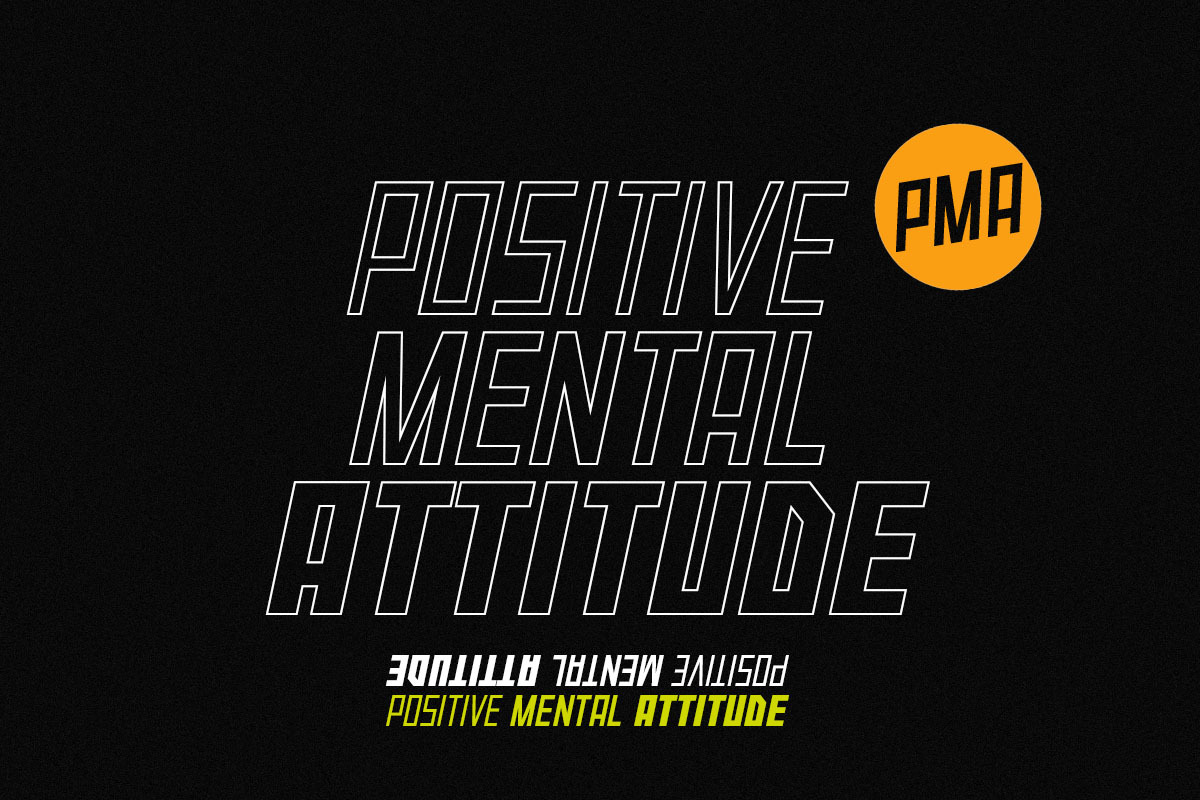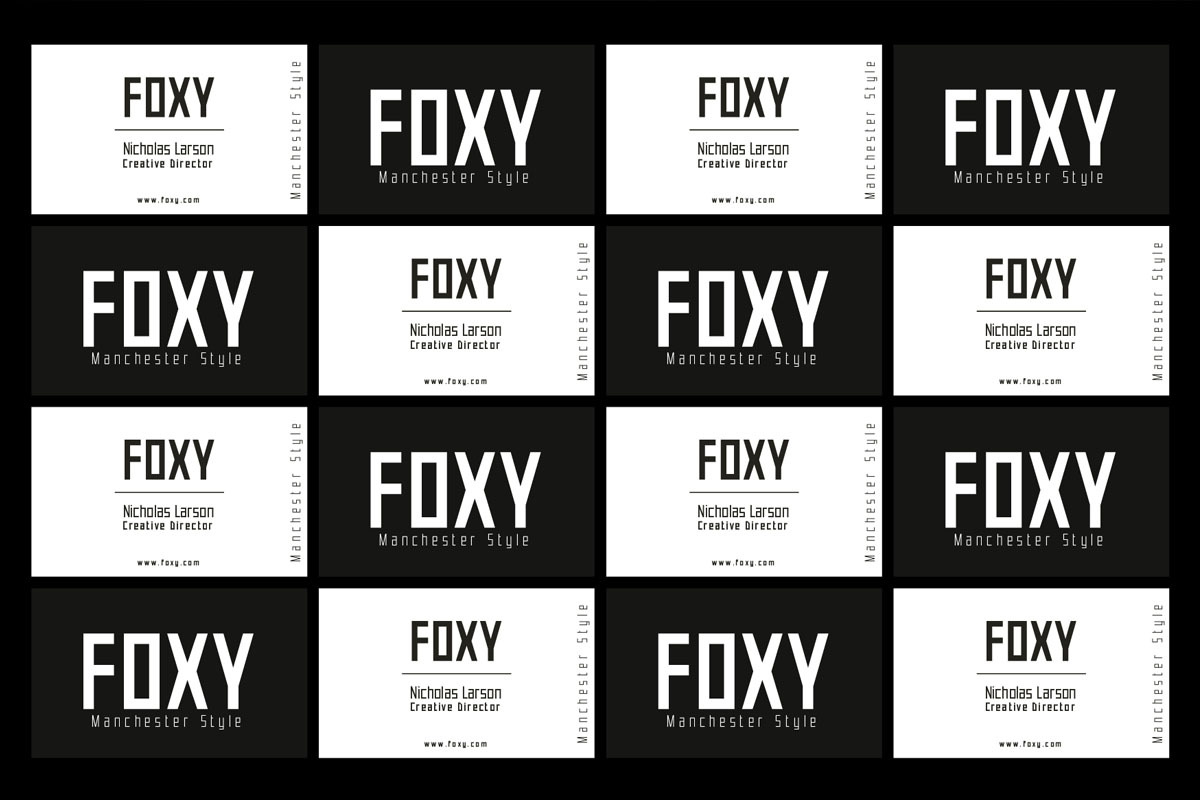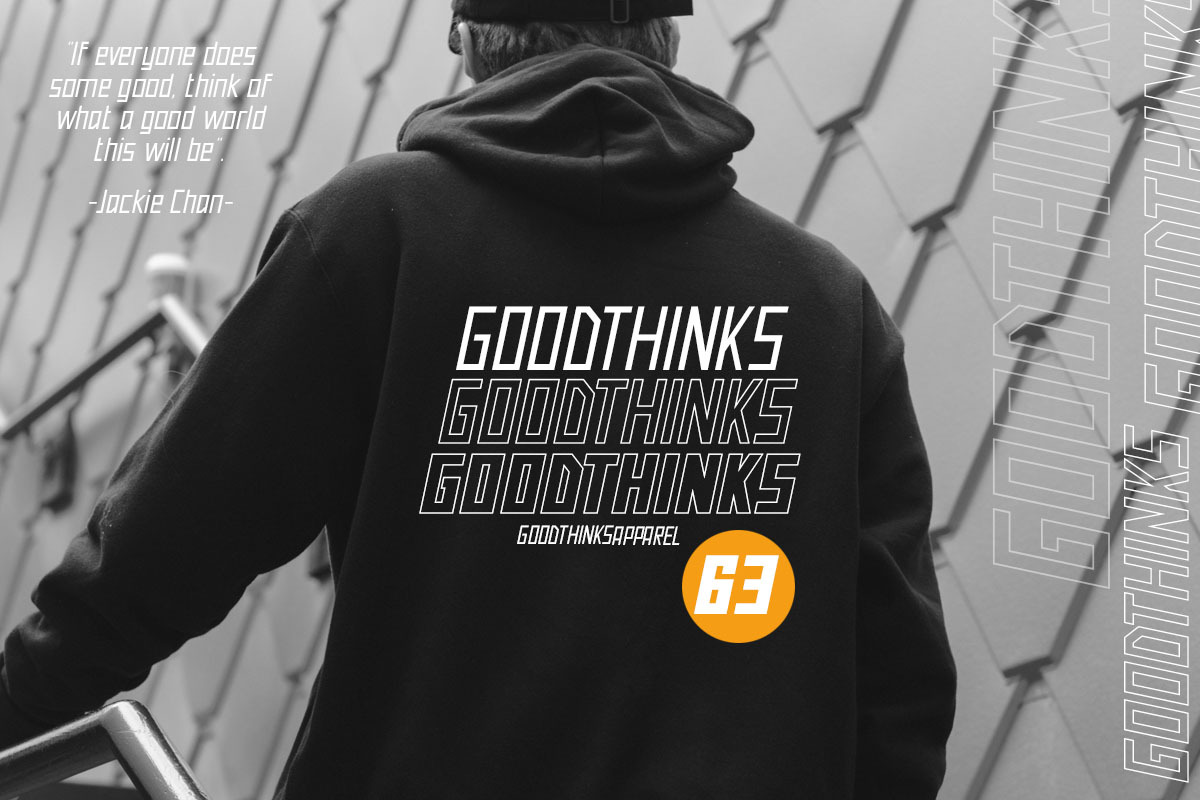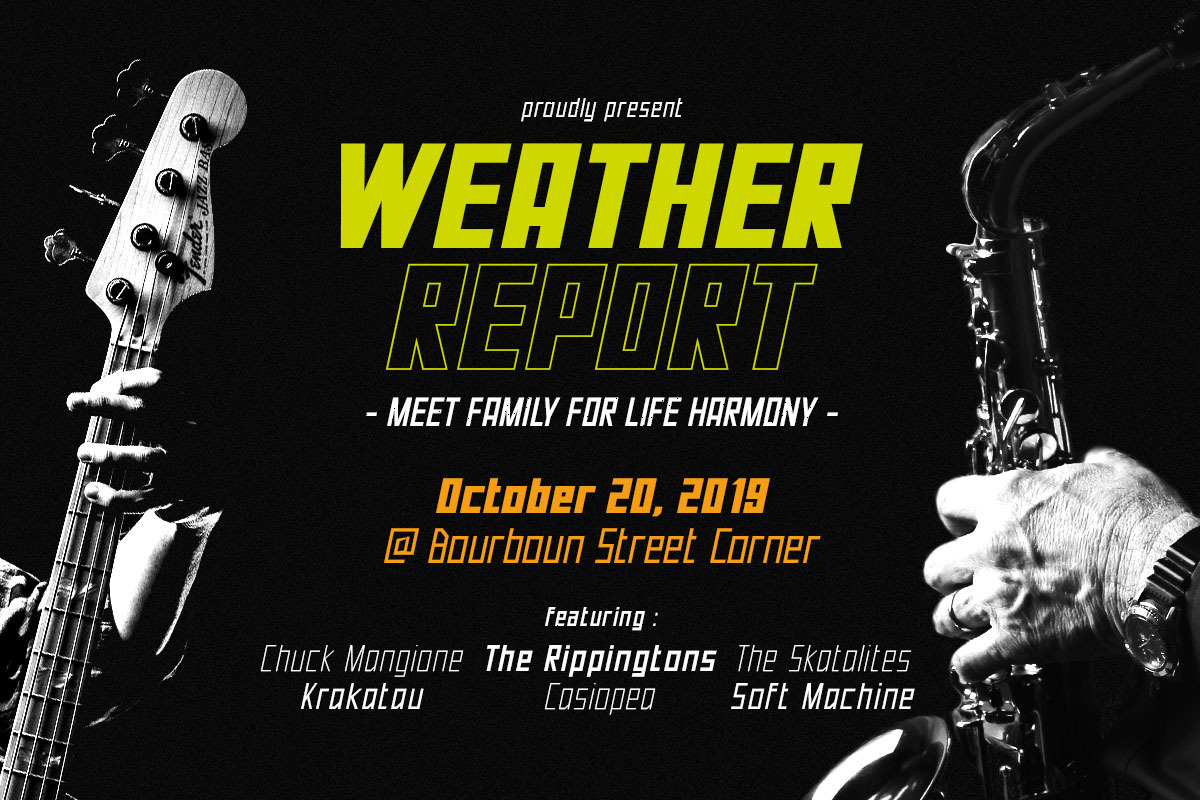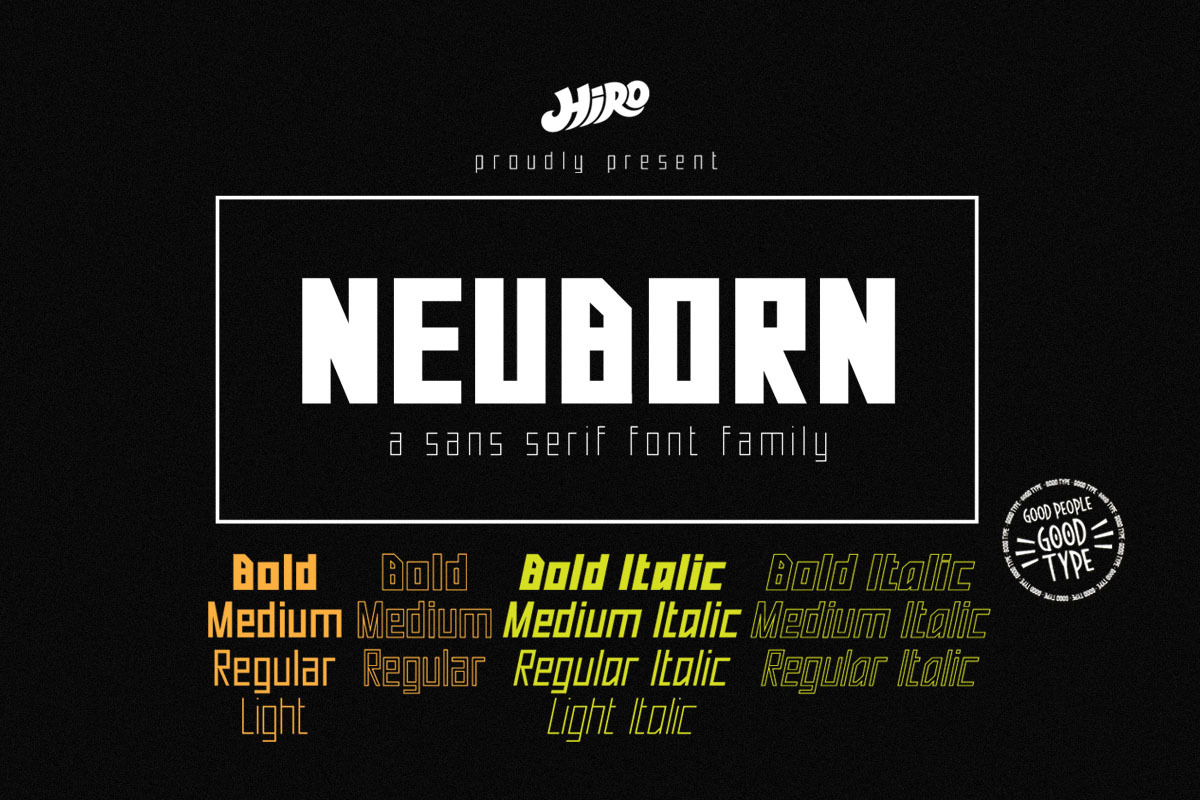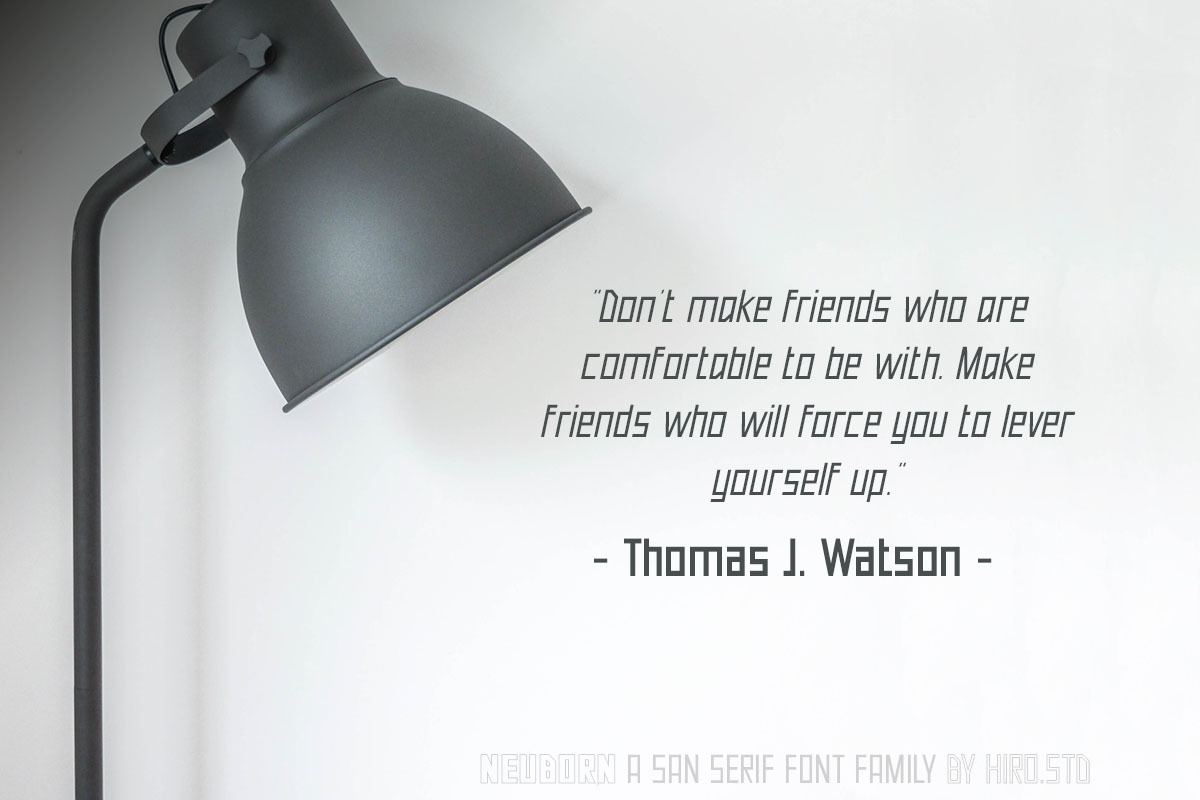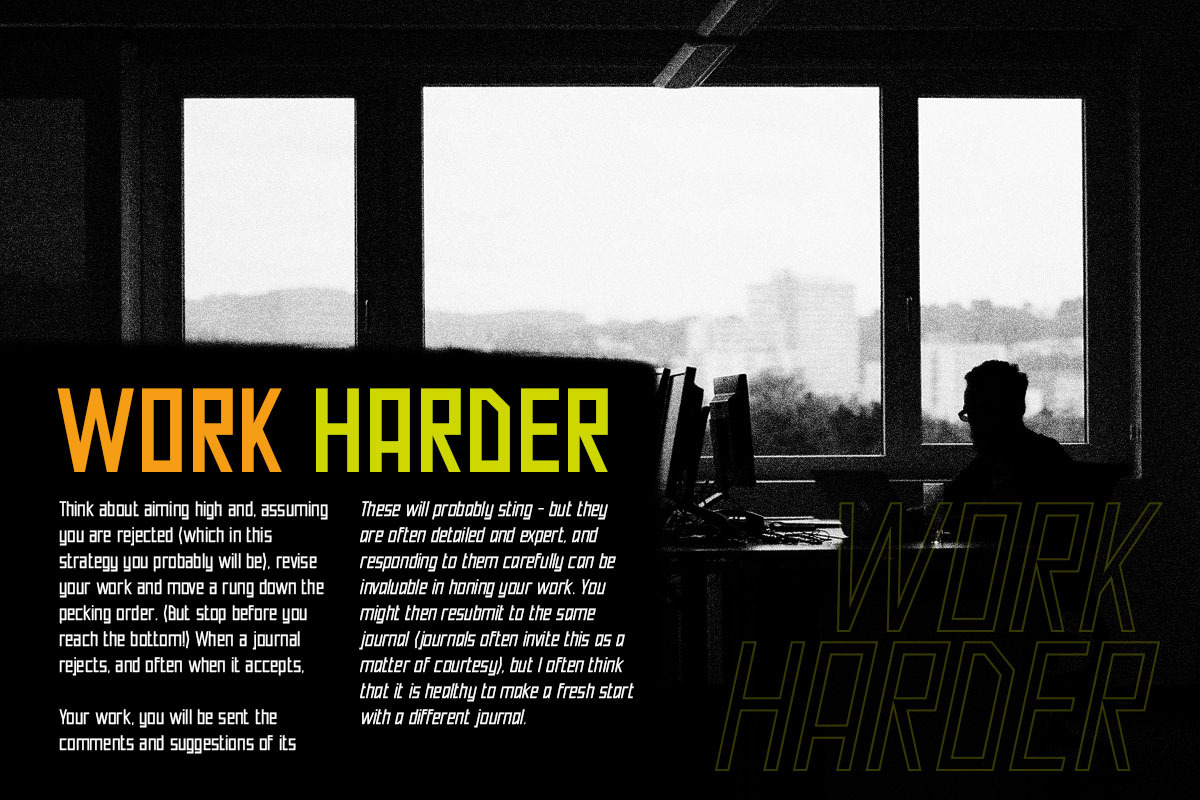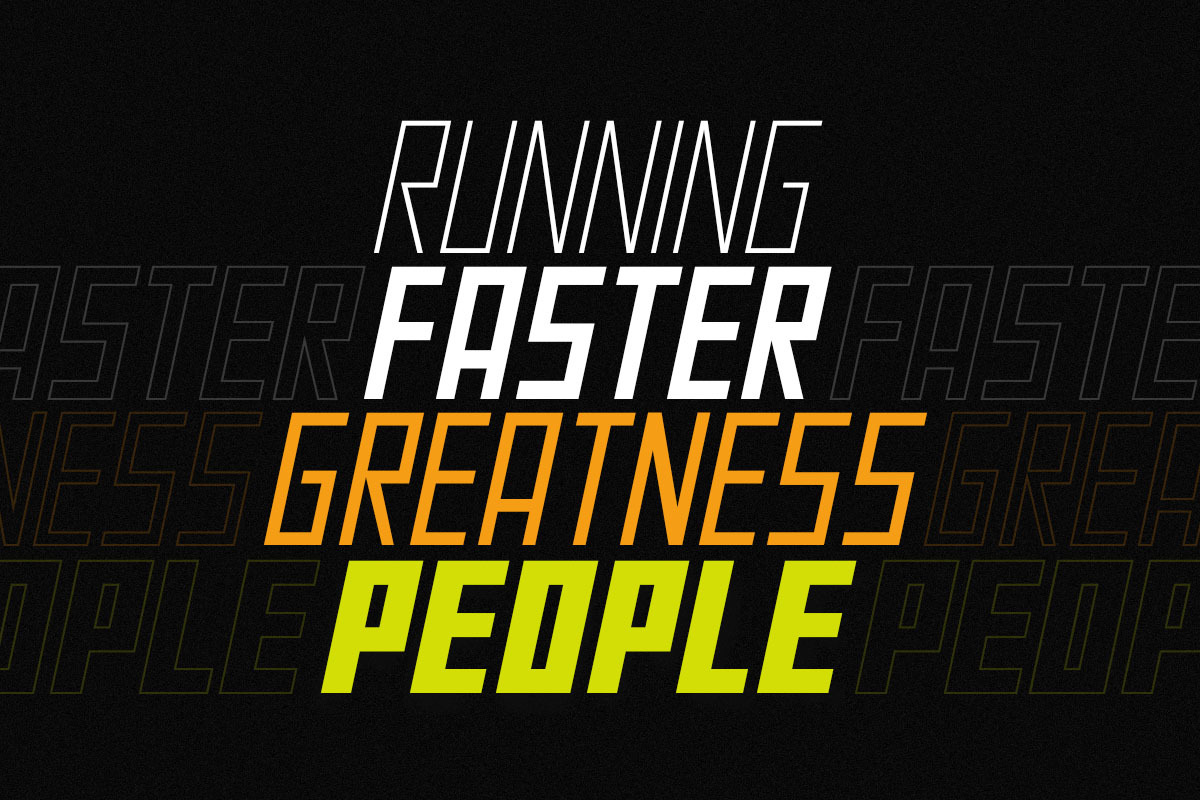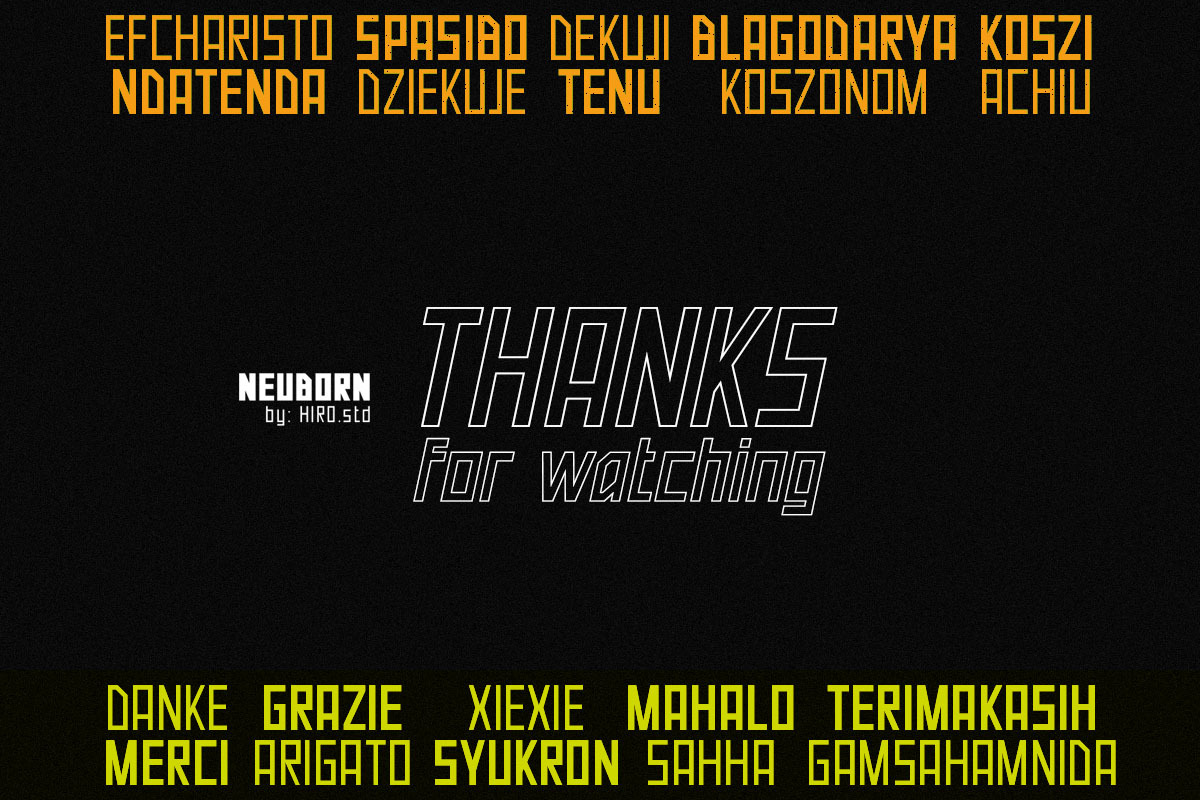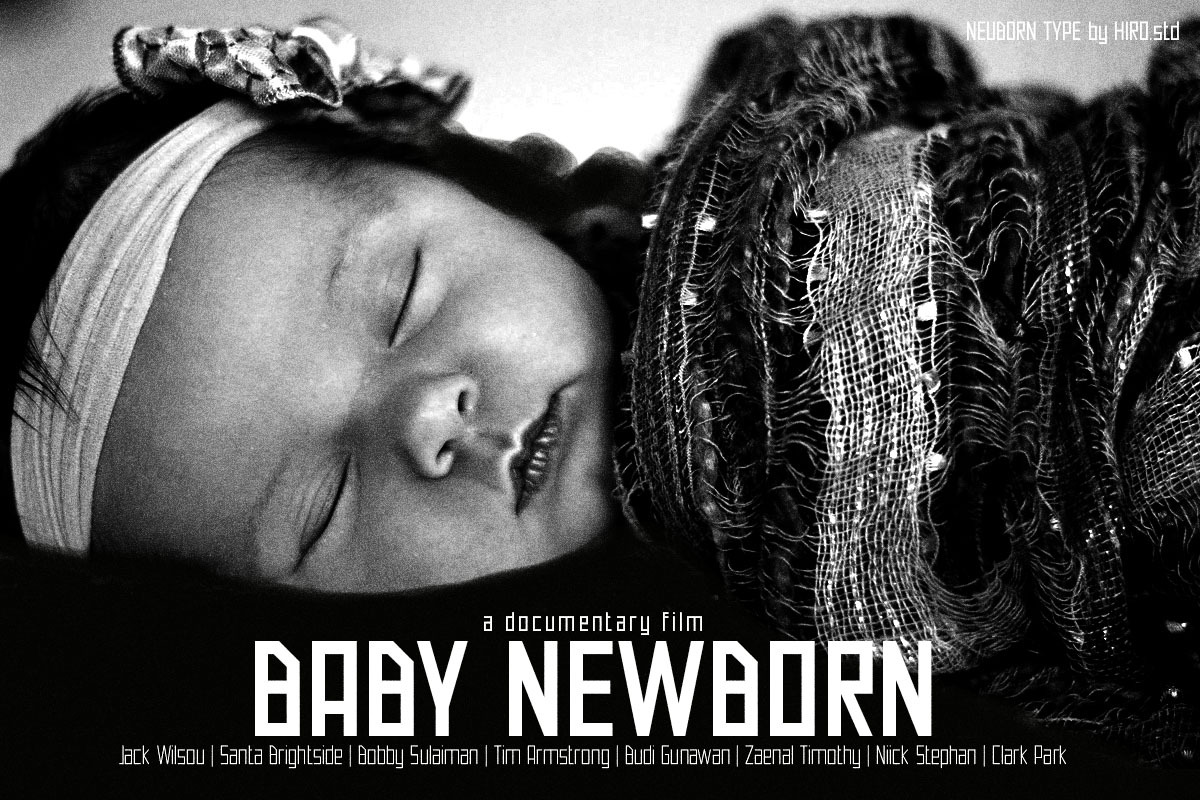
Neuborn - Sans Serif Font Family
Neuborn is a Sans Serif Font Family
(Light, Light Italic, Regular, Regular Italic, Regular Hollow, Regular Italic Hollow, Medium, Medium Italic, Medium Hollow, Medium Italic Hollow, Bold, Bold Italic, Bold Hollow, Bold Italic Hollow).
This Font Template contains Modern, Formal or Non Formal, Classy, Elegant, Strong, Readable, Stylish, Cool, Bold, Minimalist and easy to use.
USE Neuborn works great in any branding, name card, logos, apparel, produk pagaking, flyers, magazines, label, films, stationary, posters, etc. and any design project that requires a formal or informal touch.